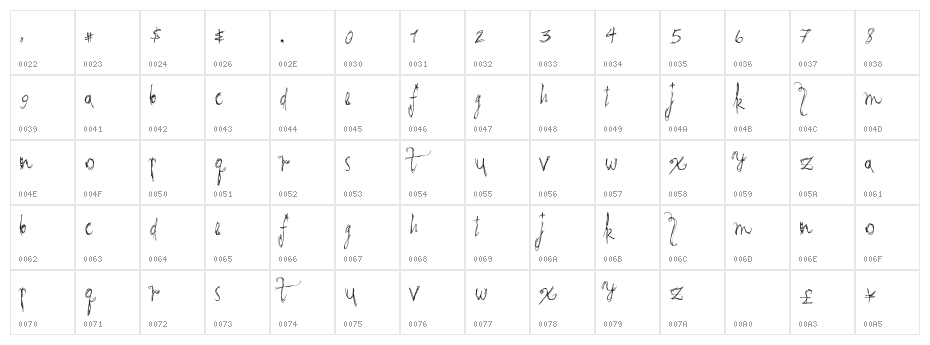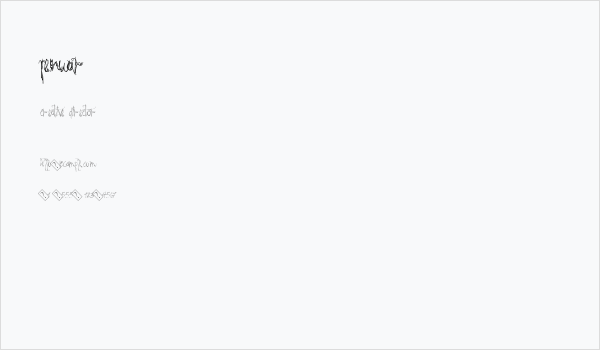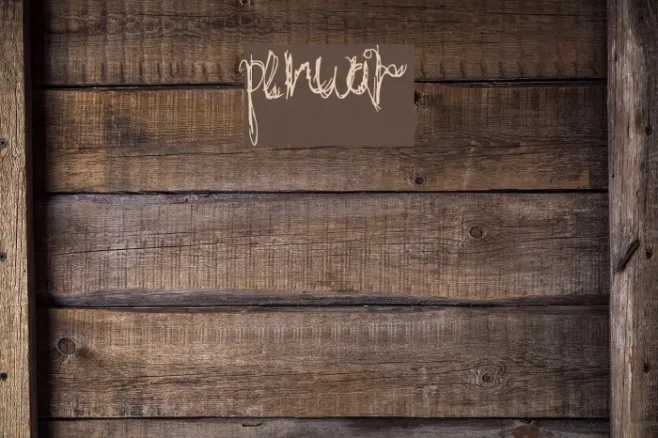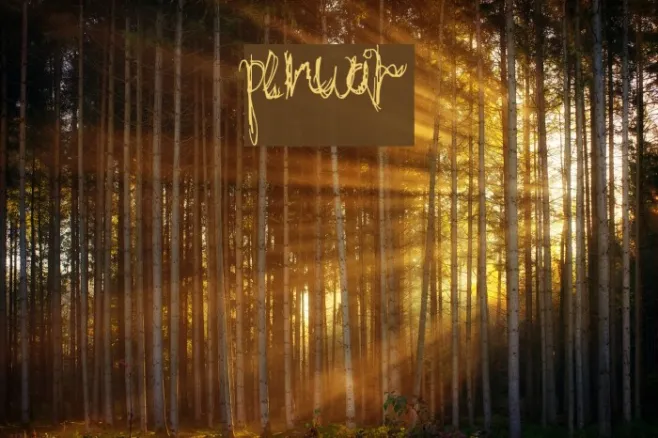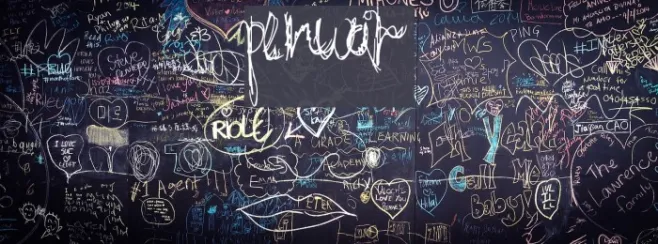
PenWar Font
PenWar Description
This font features an intricate and artistic design, characterized by its flowing, script-like appearance. The letters are adorned with elaborate flourishes and swirls, giving it a whimsical and decorative feel. The strokes vary in thickness, adding a dynamic and lively quality to the text. The overall look is reminiscent of hand-drawn calligraphy, with a playful and creative twist. This font captures attention with its unique and expressive style, making it suitable for projects that require a touch of elegance and individuality.